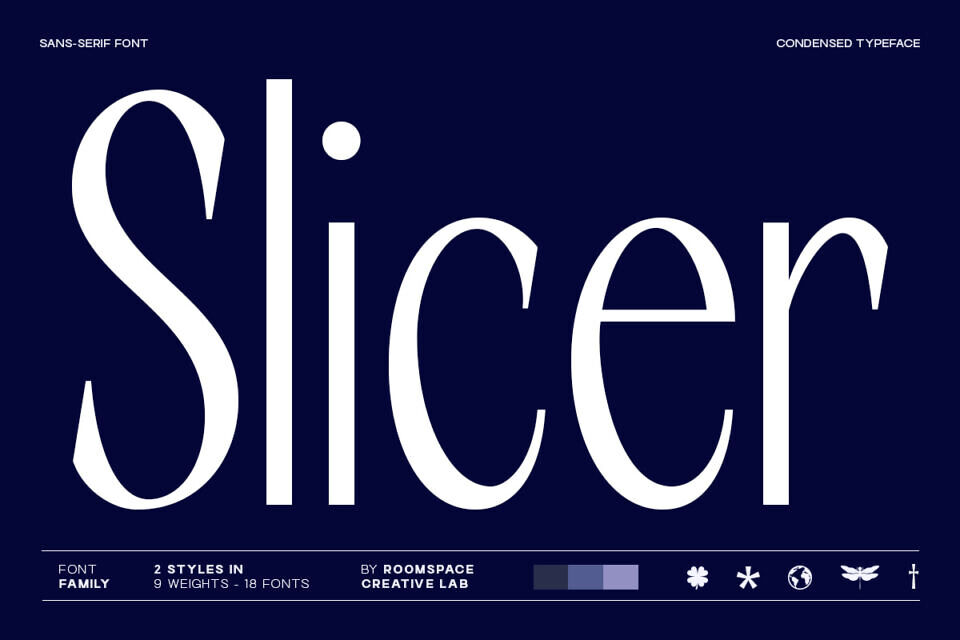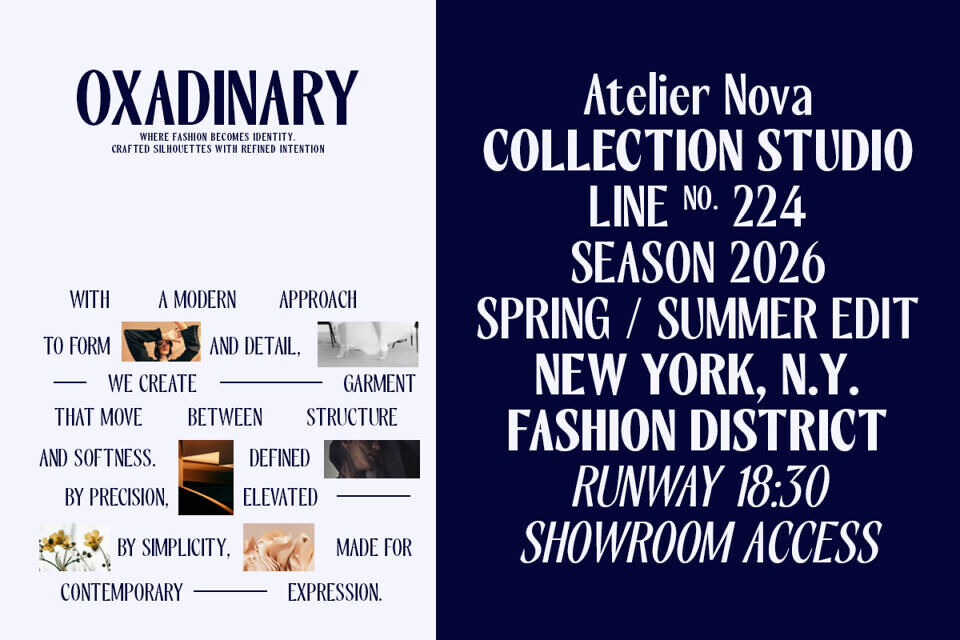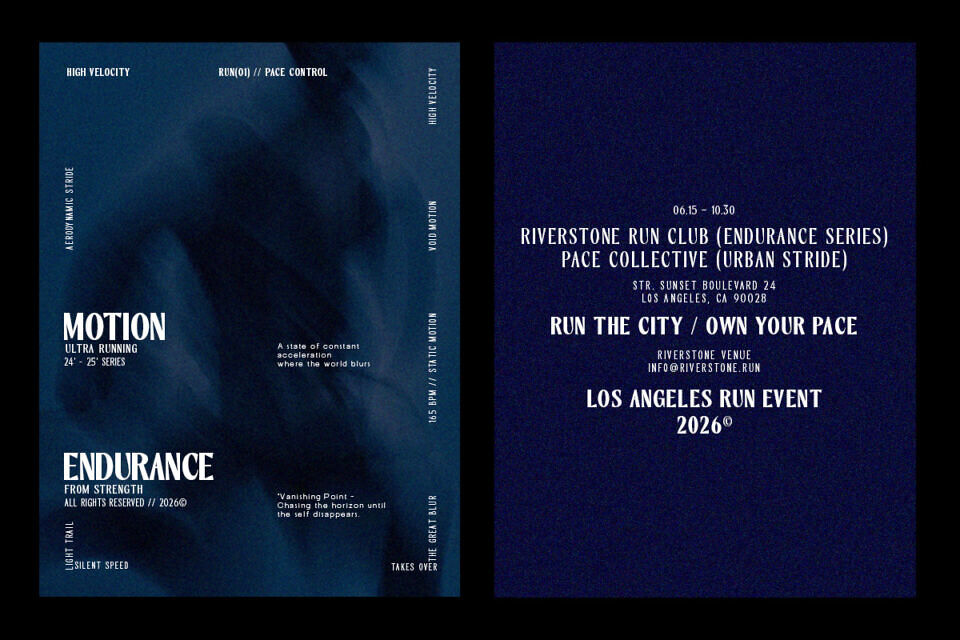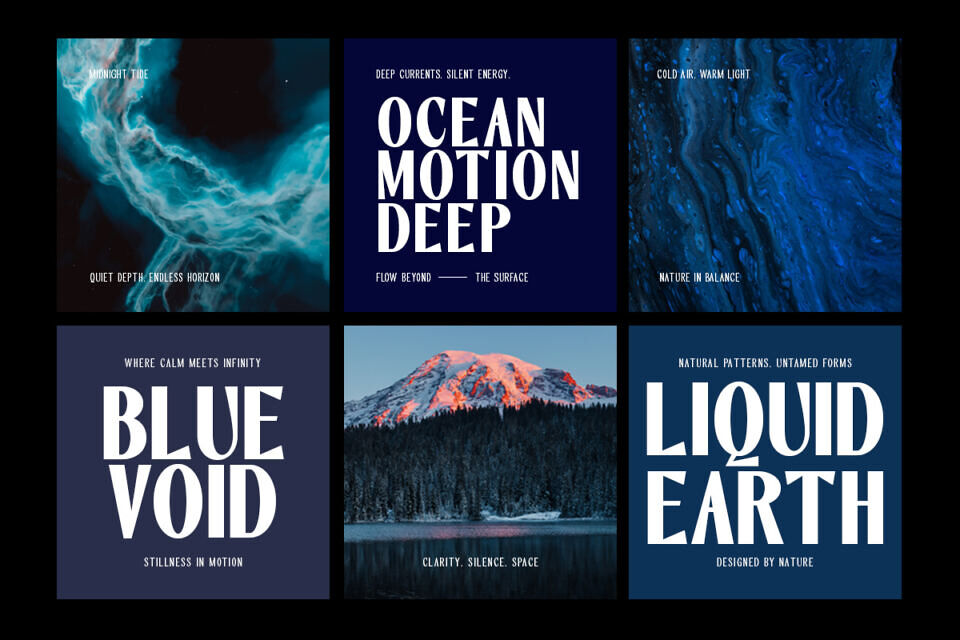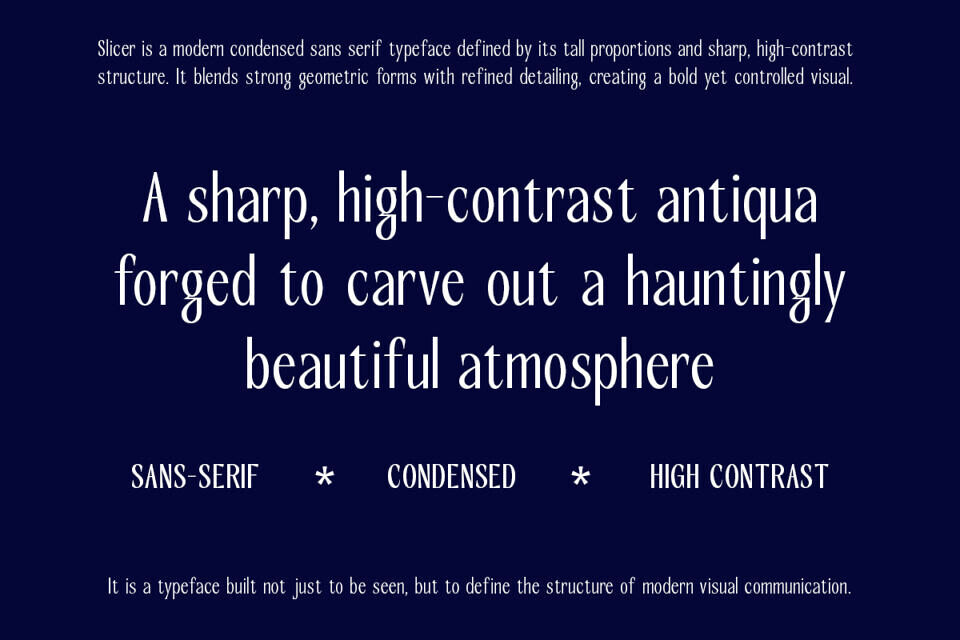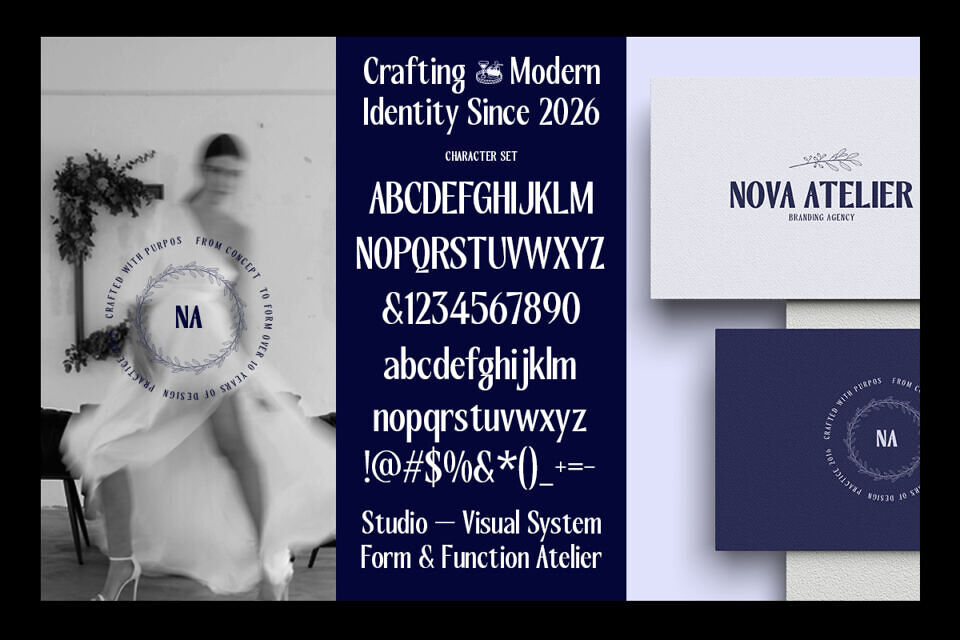
Slicer is a condensed sans-serif font family designed for modern designers who need precision and presence. With its narrow proportions and sharp contrast, Slicer creates strong visual hierarchy while maintaining clean readability.
From branding systems to editorial layouts, Slicer adapts effortlessly across contemporary design needs. It’s built to define your message not just display it. Sharp, confident, and structured a condensed sans-serif built for clarity and impact. Slicer emphasizes vertical rhythm, tight spacing, and high contrast, creating a bold and modern visual presence.